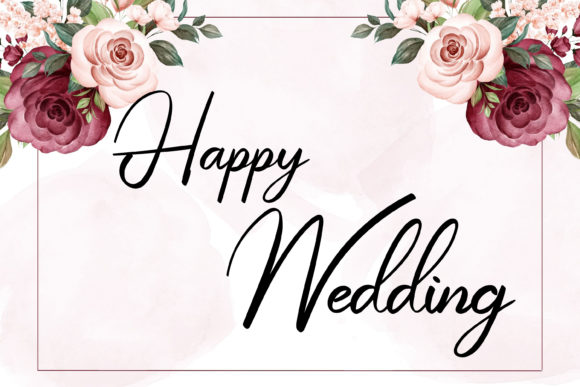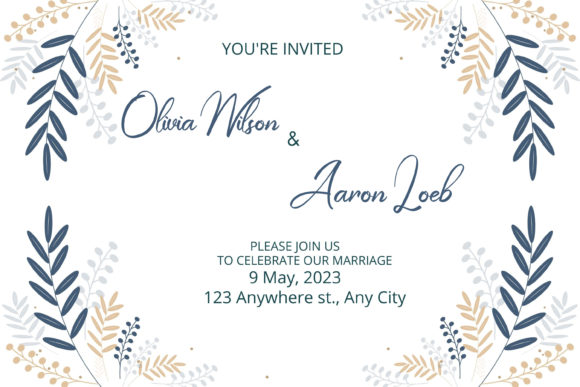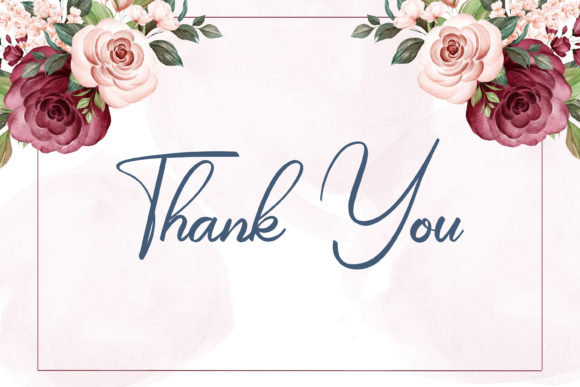
“Signature” is a sweet handwritten font created with meticulous care to deliver exceptional outcomes. Its charming and unique design makes it perfect for a variety of applications, from product packaging and branding projects to magazine covers, social media graphics, and wedding materials. This versatile font is crafted to seamlessly express words above different backgrounds, adding a personal and elegant touch to your designs.
The handwritten nature of “Signature” contributes to its warmth and authenticity. Its sweet and gentle strokes create a sense of intimacy and a personal connection with the audience. This makes the font particularly well-suited for projects where a touch of sincerity and individuality is desired.
Whether used for product packaging or branding, “Signature” transforms ordinary text into a visual delight. Its carefully crafted strokes and curves add a unique flair, making your designs stand out and leave a lasting impression.
In social media graphics, “Signature” brings a personalized touch to your posts and captions. Its sweet and approachable style enhances the overall visual appeal, creating a cohesive and engaging aesthetic for your online presence.
When applied to wedding materials, “Signature” adds a romantic and whimsical feel. The font’s sweet handwritten style captures the sentiment of the occasion, creating beautiful and memorable invitations, place cards, and more.
The adaptability of “Signature” shines through in its ability to complement various design contexts. Its usage is not limited to specific projects but extends to any creative endeavor where a sweet and handwritten touch is desired.
In summary, “Signature” is more than just a font; it’s a carefully crafted design asset that brings sweetness and authenticity to your projects. Its versatility makes it a valuable tool for designers seeking a font that adds a personal and elegant touch to product packaging, branding, social media graphics, wedding materials, and beyond. With “Signature,” every stroke is an expression of care and creativity, making your designs truly stand out.